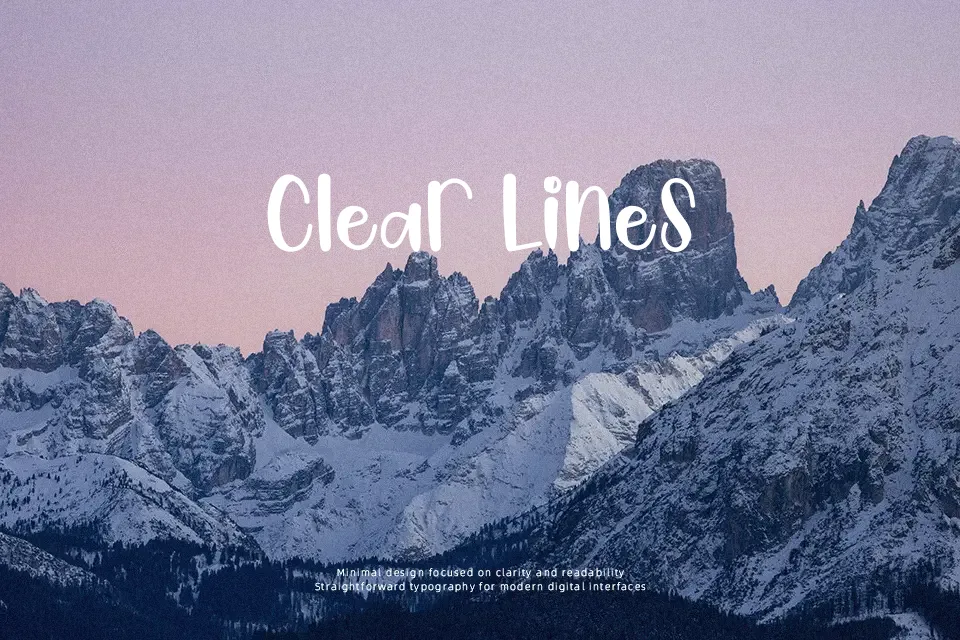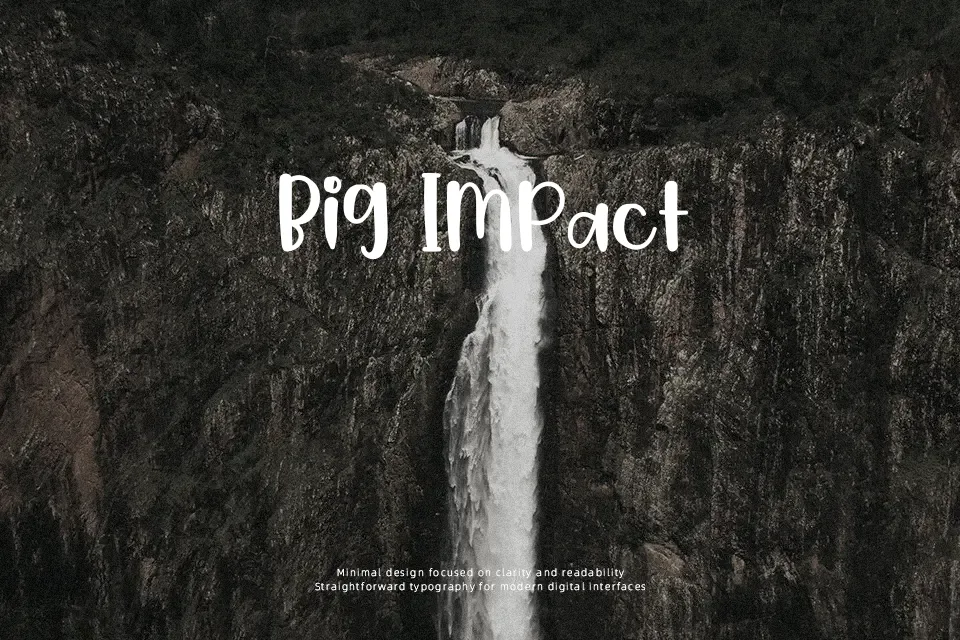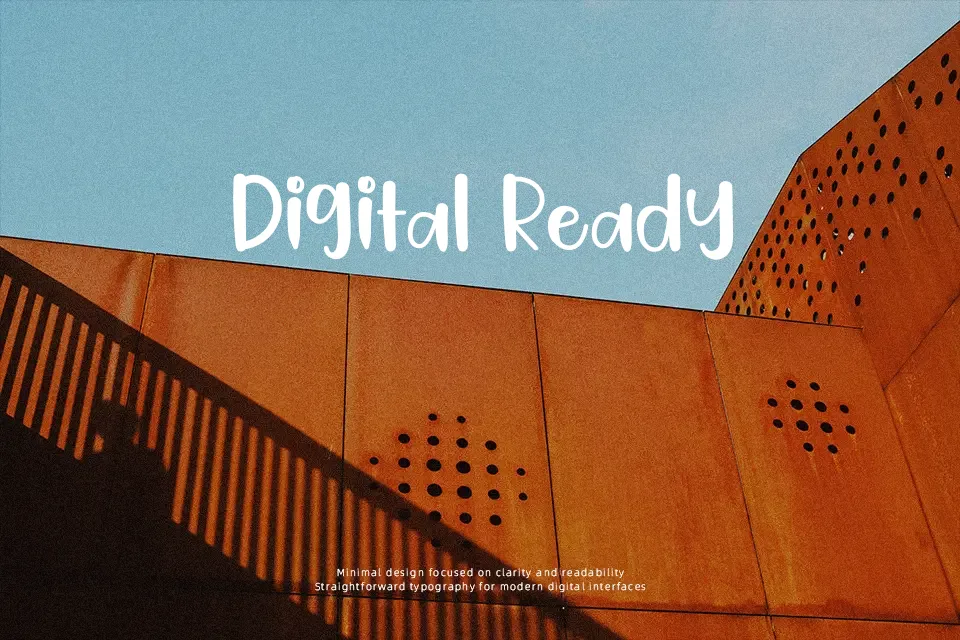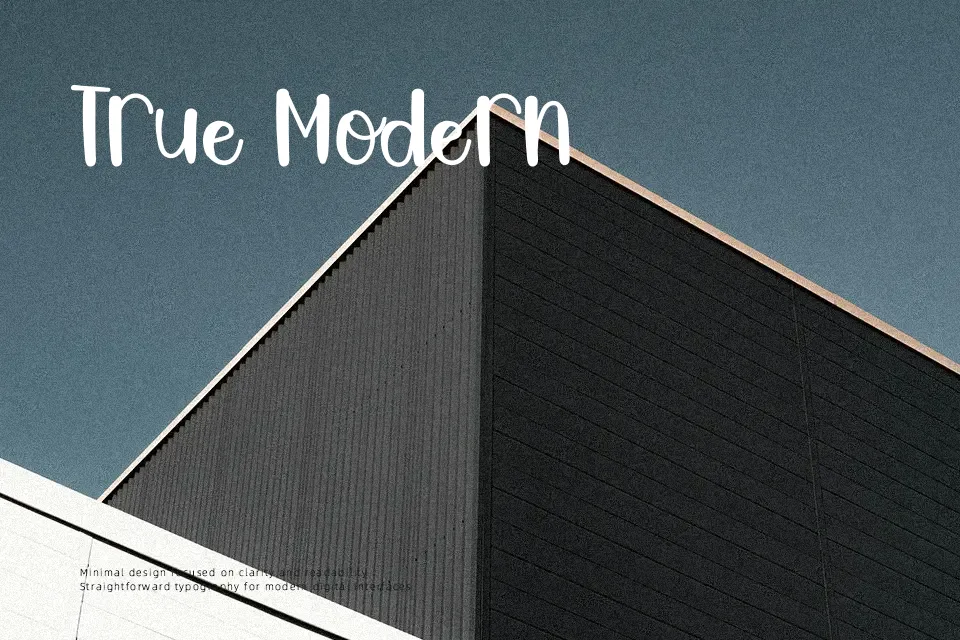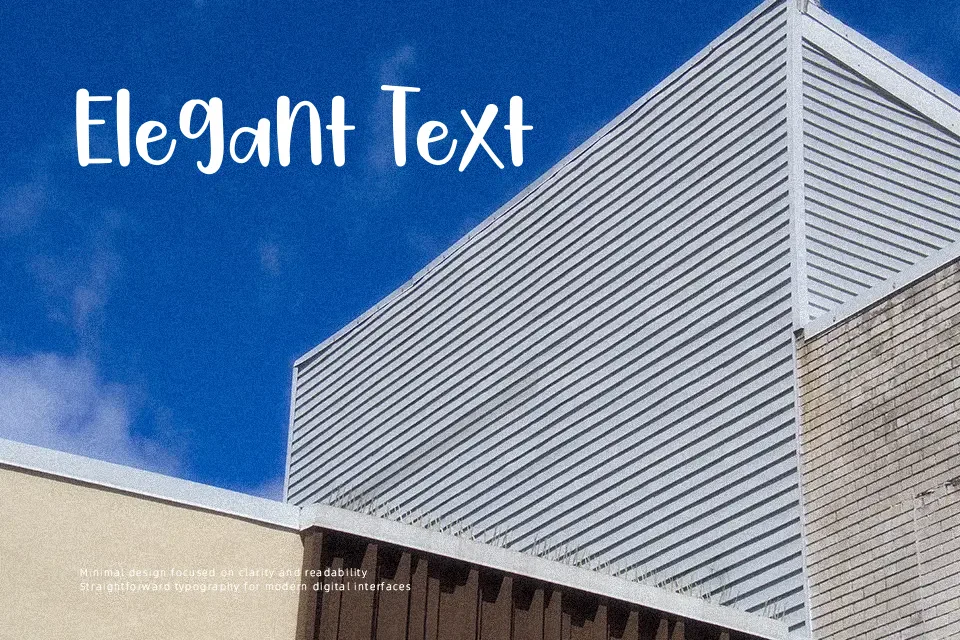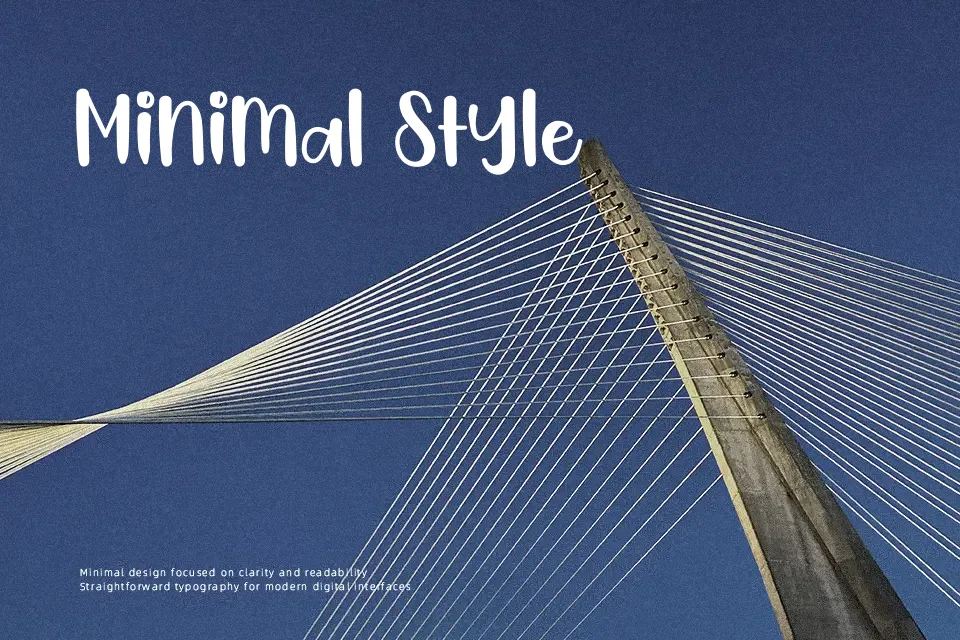
Santa In Christmas Font
Santa In Christmas Font presents thick, rounded display letterforms characterized by cheerful cartoon silhouettes and heavy stroke weights. The balanced character spacing and low stroke contrast maintain immediate visual presence across prominent headings and festive signage. While the heavy, decorative structure captures an energetic seasonal atmosphere in large formats, the dense forms reduce legibility in continuous body copy and small caption settings.
Best For: holiday party invitations, festive merchandise packaging, children’s event posters, seasonal greeting cards
Not Ideal For: continuous editorial paragraphs, small mobile interface text, formal legal documents, dense technical manuals